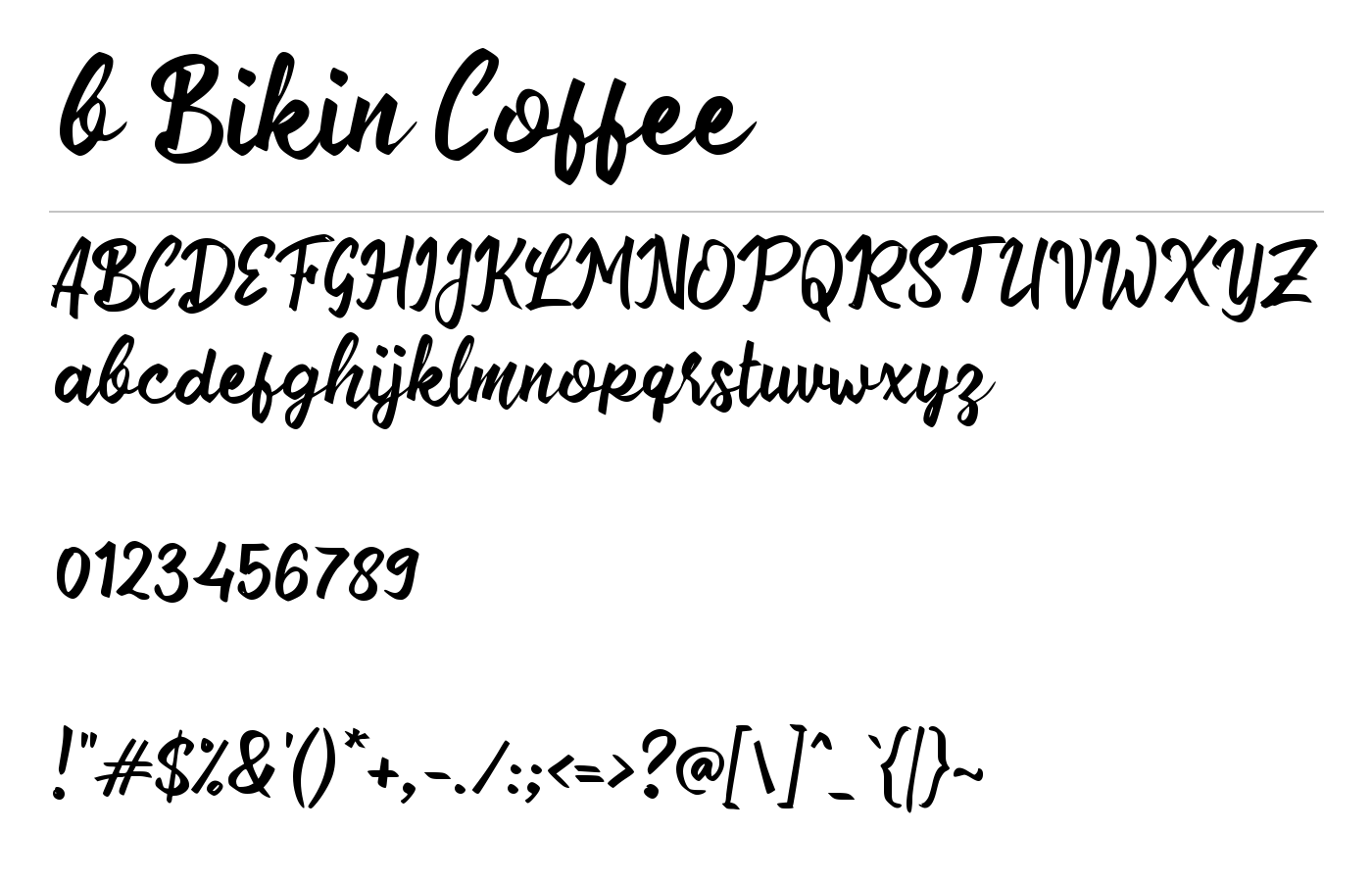
Bikin Coffee is a lively script font with a friendly, hand-drawn feel, featuring smooth, flowing strokes and moderate contrast that add warmth and personality. Its casual yet polished style makes it ideal for branding, packaging, and invitations where a personal and approachable touch is desired. This font works well for creative projects that want to convey charm and a relaxed, inviting mood.
b Bikin Coffee Font
About b Bikin Coffee Font